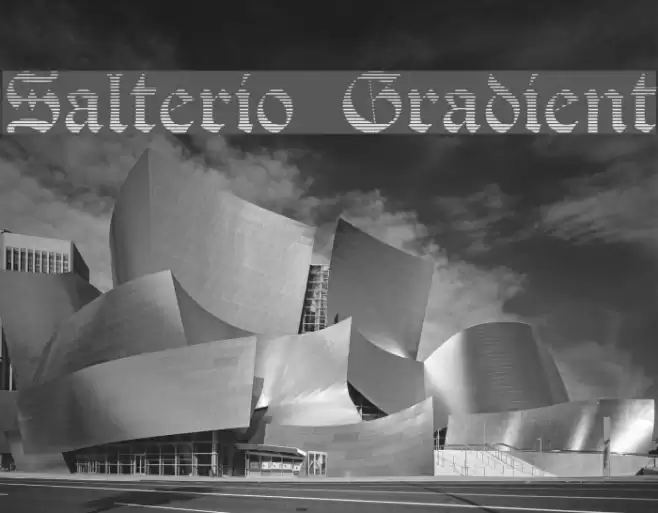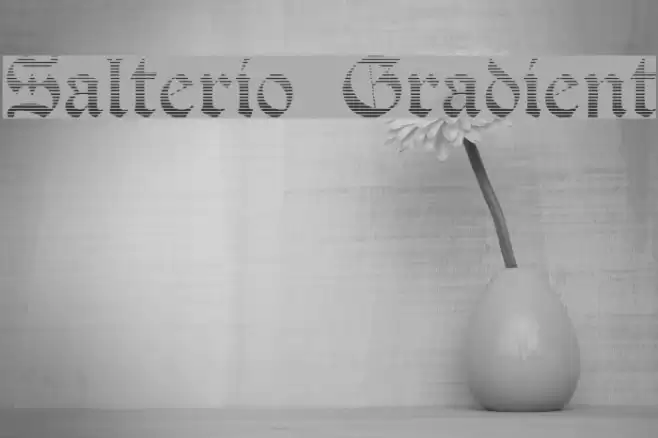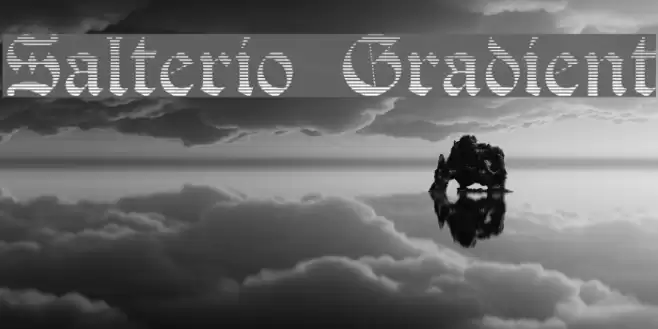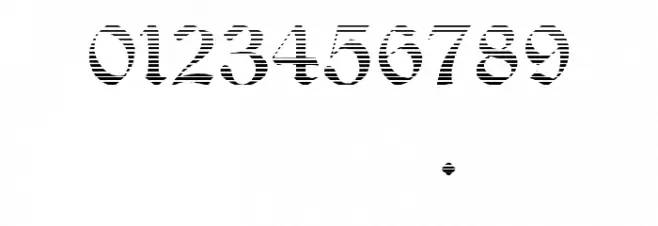
Salterio Gradient Font
Salterio Gradient Description
This font features a unique blend of traditional and modern elements, characterized by its decorative, striped pattern that runs horizontally across each character. The uppercase letters exhibit a bold, gothic-inspired style with sharp serifs and intricate detailing, while the lowercase letters maintain a consistent aesthetic with slightly softer curves. The numerals and special characters follow the same design principles, ensuring a cohesive look throughout. The font's distinct gradient effect adds depth and dimension, making it stand out in any design project.
A decorative font with a striped, gothic-inspired design and gradient effect from Uncategorized fonts.